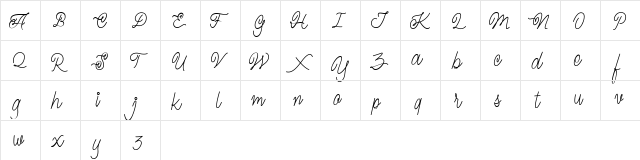
Magna FREE Regular
| Foundry | inpiratype |
| Designer | inspiratype |
Design Context for Magna FREE Typeface
Magna FREE is a composed and adaptable typeface that performs quietly and consistently across a wide range of design contexts.